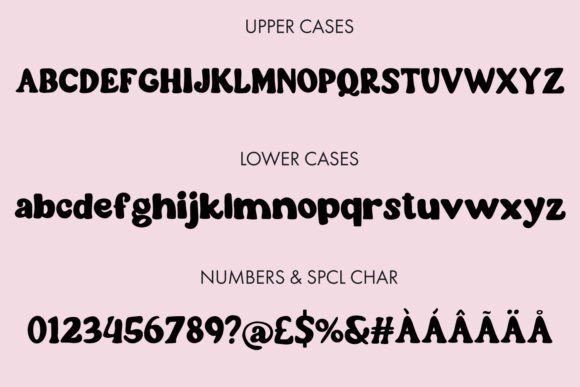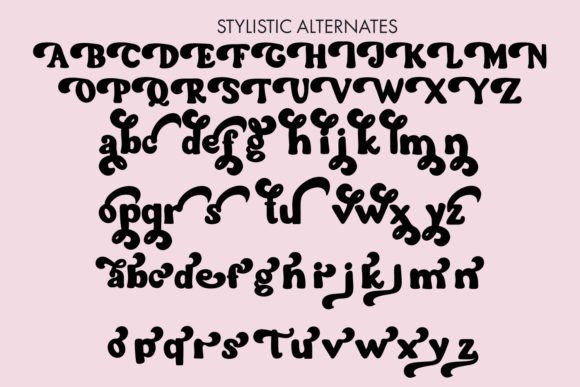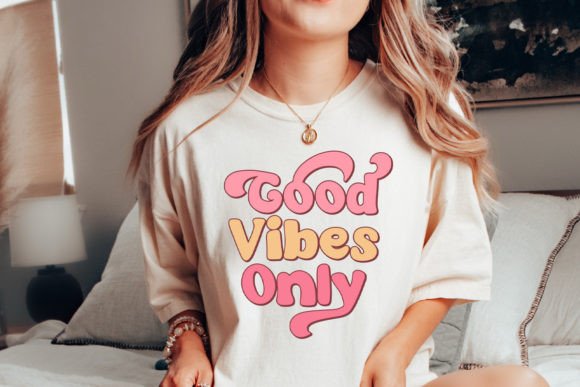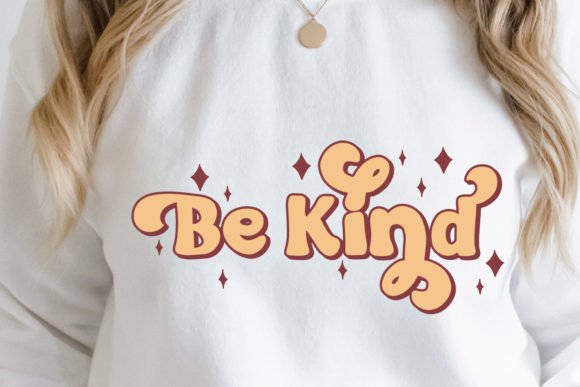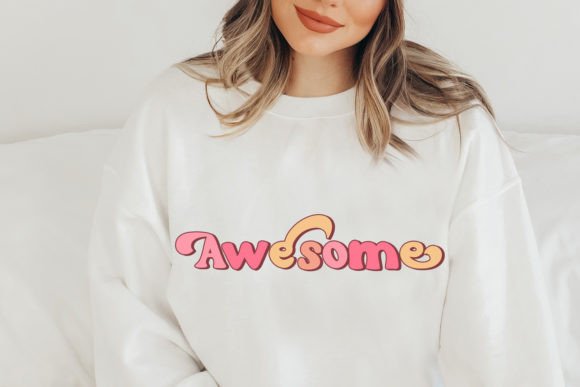
Funky Town Font: Get Ready to Groove with this Retro Handwritten Font!
Are you ready to add a dash of nostalgia to your designs? Look no further than the Funky Town Font, a handwritten retro font that’s sure to bring back the funky vibes of the past. This stylish font is perfect for designers and crafters who want to infuse their projects with a unique and playful flair.
What is Funky Town Font?
Funky Town is a carefully crafted handwritten font that embodies the spirit of a bygone era. Its retro charm and stylistic alternates make it an excellent choice for a wide range of design projects, from T-shirt designs and phone cases to greeting cards, invitations, and mugs.
One of the standout features of Funky Town Font is its PUA (Private Use Area) encoding, which allows you to access a vast array of glyphs and ligatures with ease. This means you can get creative with your designs and experiment with different styles and combinations to achieve a truly unique look.
Key Features of Funky Town Font
- Handwritten Retro Style: Funky Town Font boasts a distinctive handwritten retro style that’s sure to capture the essence of a bygone era.
- Stylistic Alternates: The font comes with a range of stylistic alternates, allowing you to add a unique flair to your designs and experiment with different styles.
- PUA Encoded: With PUA encoding, you can access a wide range of glyphs and ligatures, making it easy to get creative with your designs.
- Versatile: Funky Town Font is perfect for a wide range of design projects, from T-shirt designs and phone cases to greeting cards, invitations, and mugs.
Why Choose Funky Town Font?
So why choose Funky Town Font for your next design project? Here are just a few reasons:
- Add a Touch of Nostalgia: With Funky Town Font, you can add a touch of nostalgia to your designs and transport your audience back to a bygone era.
- Stand Out from the Crowd: The font’s unique retro style and stylistic alternates make it an excellent choice for designers who want to stand out from the crowd and create something truly unique.
- Ease of Use: With PUA encoding, you can access a wide range of glyphs and ligatures with ease, making it simple to get creative with your designs.
- Fun and Playful: Funky Town Font is the perfect choice for designers who want to infuse their projects with a sense of fun and playfulness.
How to Use Funky Town Font
Using Funky Town Font is easy! Here are a few tips to get you started:
- T-Shirt Designs: Use Funky Town Font to create eye-catching T-shirt designs that are sure to turn heads.
- Phone Cases: Add a touch of personality to phone cases with this unique and stylish font.
- Greeting Cards: Create one-of-a-kind greeting cards that are sure to impress with Funky Town Font.
- Invitations: Use the font to create custom invitations that set the tone for a fun and playful event.
- Mugs: Add a dash of nostalgia to mug designs with Funky Town Font.
In conclusion, Funky Town Font is a must-have for designers and crafters who want to add a touch of nostalgia and playfulness to their projects. With its retro charm, stylistic alternates, and PUA encoding, this font is perfect for a wide range of design projects. So why wait? Get ready to groove with Funky Town Font and infuse your designs with the spirit of funk and fun!